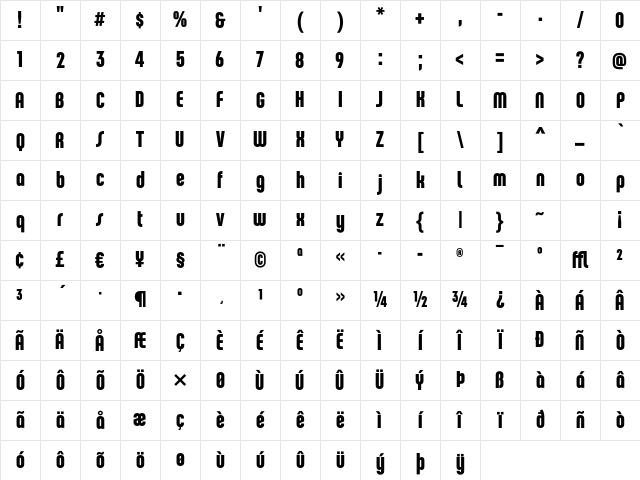
ChaletComprime HongKongSeventy
Style: HongKongSeventy
Designer: Paul van der Laan/House Industries
Complete ChaletComprime HongKongSeventy glyph index. Displaying only characters natively supported by ChaletComprime HongKongSeventy font.
Design Context for ChaletComprime
ChaletComprime is a composed and adaptable typeface that performs quietly and consistently across a wide range of design contexts.